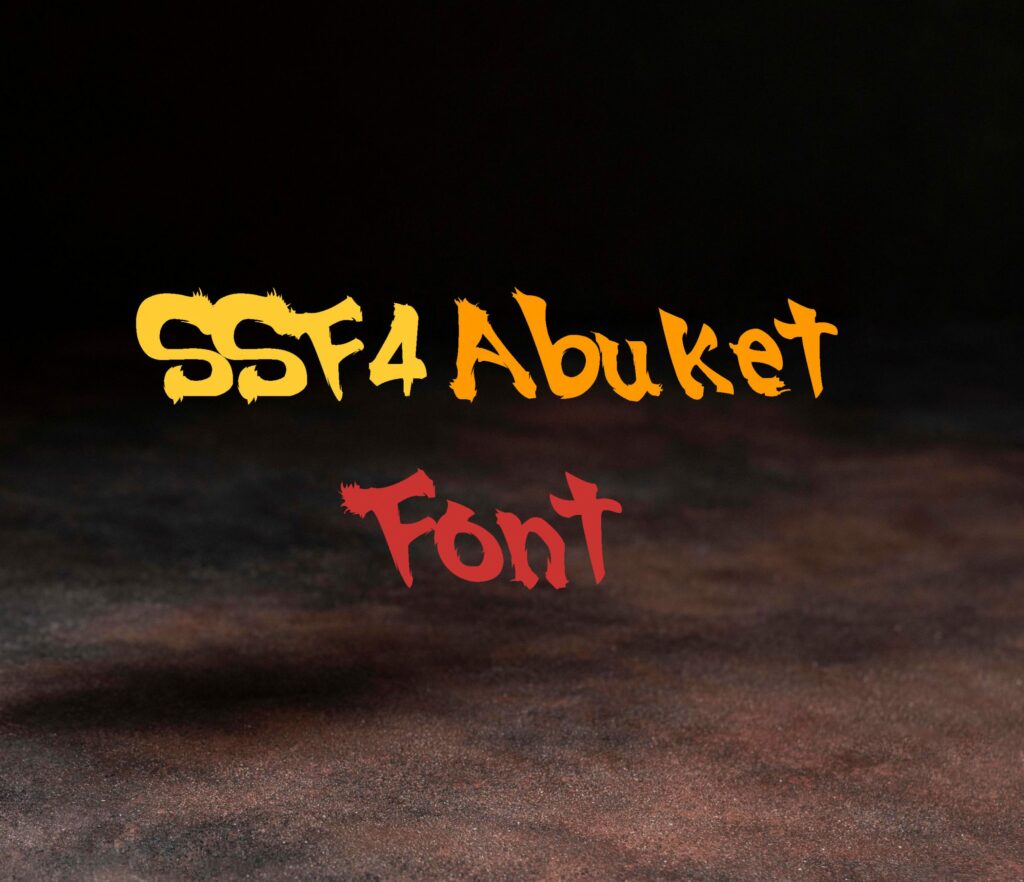
SSF4 Abuket Font
SSF4 Abuket Script Font is a high quality Brush font that is designed by ArcJavier and is available for free download and personal use. The free version provides all uppercase and lowercase letters and a few special characters too.
SSF4 Abuket Script Font